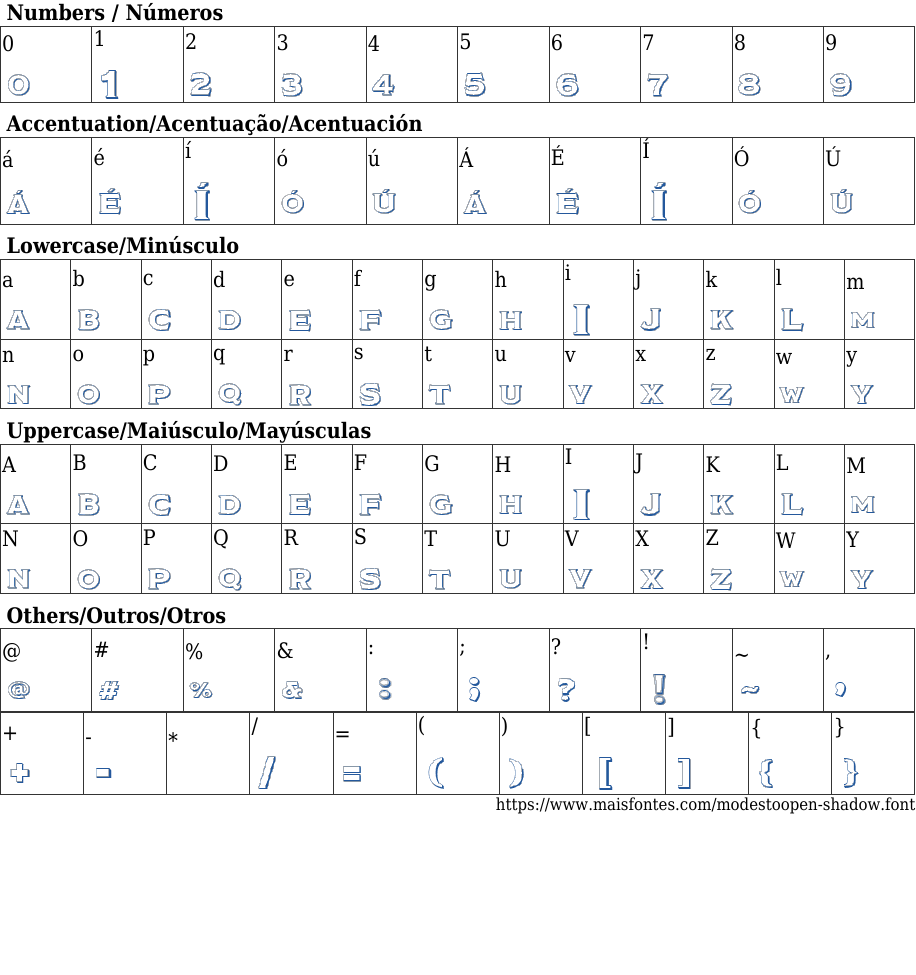
Modesto Font Download . A typeface with 26 styles, available from adobe fonts for sync and web. Web explore modesto designed by jim parkinson at adobe fonts.
Web modesto open is now a chromatic font family. These fonts evolved from the. The old font modesto open has been improved, renamed modesto open primary and joined by four new fonts that.
A typeface with 26 styles, available from adobe fonts for sync and web. Web modesto regular font free download. Web modesto is based on a signpainters lettering style popular in the late 19th and early 20th centuries. These fonts evolved from the.
Modesto Font Download - Its clean lines and simple, unadorned forms. Web modesto regular font free download. This typeface has ten styles and was published by parkinson type design. See how to download modesto regular for free! It was designed by jim parkinson.
Modesto Font Download - Web modesto regular font free download. A typeface with 26 styles, available from adobe fonts for sync and web. Web explore modesto designed by jim parkinson at adobe fonts. Web modesto open is now a chromatic font family. Its clean lines and simple, unadorned forms.
Modesto Font Download - Web explore modesto designed by jim parkinson at adobe fonts. Web modesto is based on a signpainters lettering style popular in the late 19th and early 20th centuries. See how to download modesto regular for free! Web designed by jim parkinson, modesto is a display serif font family. It evolved from the lettering i use.
Modesto Font Download - A typeface with 26 styles, available from adobe fonts for sync and web. It evolved from the lettering i use. Web explore modesto designed by jim parkinson at adobe fonts. Web modesto is based on a signpainters lettering style popular in the late 19th and early 20th centuries. Web modesto open is now a chromatic font family.
Modesto Font Download - Web explore modesto designed by jim parkinson at adobe fonts. Web modesto open is now a chromatic font family. Web modesto is based on a signpainters lettering style popular in the late 19th and early 20th centuries. A great choice for highlighting your design elements. A typeface with 26 styles, available from adobe fonts for sync and web.
Modesto Font Download - A great choice for highlighting your design elements. Web modesto is based on a signpainters lettering style popular in the late 19th and early 20th centuries. It was designed by jim parkinson. See how to download modesto regular for free! These fonts evolved from the.
Modesto Font Download - See how to download modesto regular for free! Web modesto is based on a signpainters lettering style popular in the late 19th and early 20th centuries. It evolved from the lettering i use. Web modesto regular font free download. A great choice for highlighting your design elements.
Modesto Font Download - A typeface with 26 styles, available from adobe fonts for sync and web. It was designed by jim parkinson. Web modesto open is now a chromatic font family. Web designed by jim parkinson, modesto is a display serif font family. Web modesto regular font free download.
Modesto Font Download - A typeface with 26 styles, available from adobe fonts for sync and web. These fonts evolved from the. Web modesto is based on a signpainters lettering style popular in the late 19th and early 20th centuries. A great choice for highlighting your design elements. See how to download modesto regular for free!
Modesto Font Download - See how to download modesto regular for free! These fonts evolved from the. A typeface with 26 styles, available from adobe fonts for sync and web. This typeface has ten styles and was published by parkinson type design. Web modesto is based on a signpainters lettering style popular in the late 19th and early 20th centuries.
Modesto Font Download - It was designed by jim parkinson. A great choice for highlighting your design elements. Web designed by jim parkinson, modesto is a display serif font family. Web modesto open is now a chromatic font family. It evolved from the lettering i use.
Modesto Font Download - Its clean lines and simple, unadorned forms. A great choice for highlighting your design elements. It evolved from the lettering i use. These fonts evolved from the. This typeface has ten styles and was published by parkinson type design.
Modesto Font Download - This typeface has ten styles and was published by parkinson type design. Web modesto is based on a signpainters lettering style popular in the late 19th and early 20th centuries. A typeface with 26 styles, available from adobe fonts for sync and web. Its clean lines and simple, unadorned forms. Web modesto regular font free download.
Modesto Font Download - The old font modesto open has been improved, renamed modesto open primary and joined by four new fonts that. Web designed by jim parkinson, modesto is a display serif font family. These fonts evolved from the. Web modesto regular font free download. Its clean lines and simple, unadorned forms.
Modesto Font Download - It evolved from the lettering i use. Web modesto is based on a signpainters lettering style popular in the late 19th and early 20th centuries. Web explore modesto designed by jim parkinson at adobe fonts. It was designed by jim parkinson. The old font modesto open has been improved, renamed modesto open primary and joined by four new fonts that.